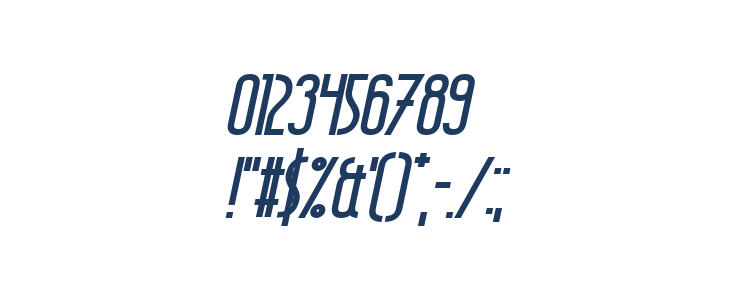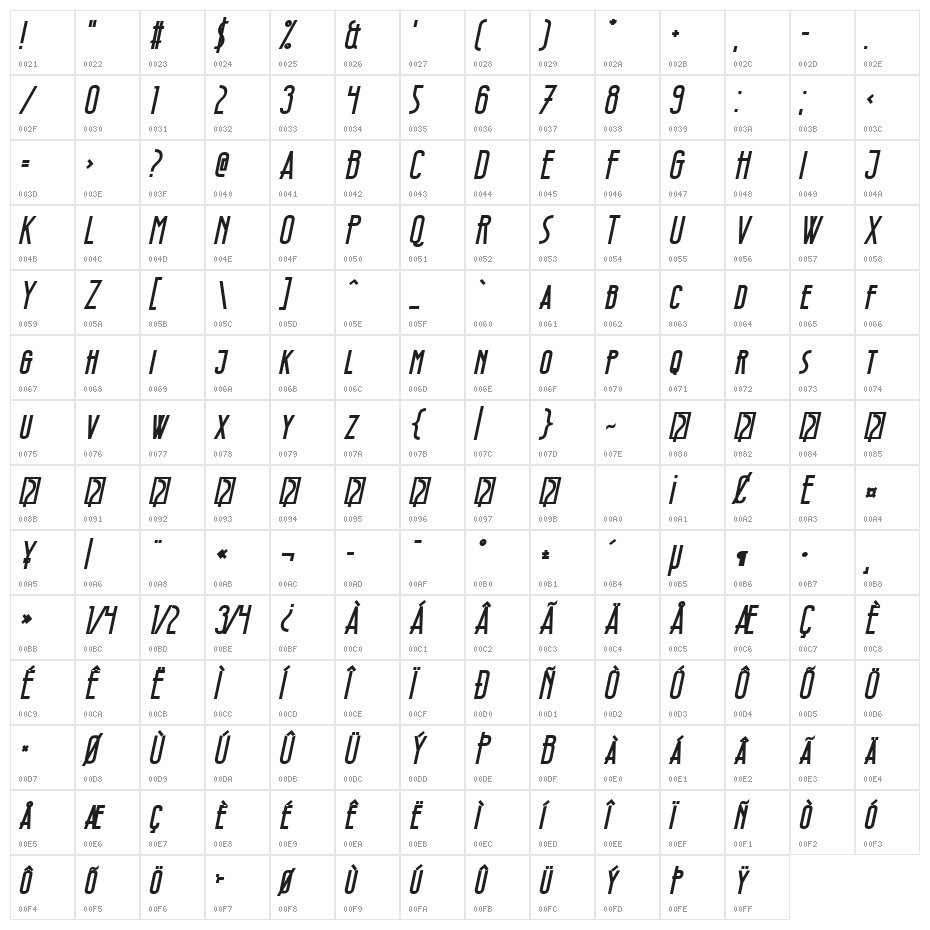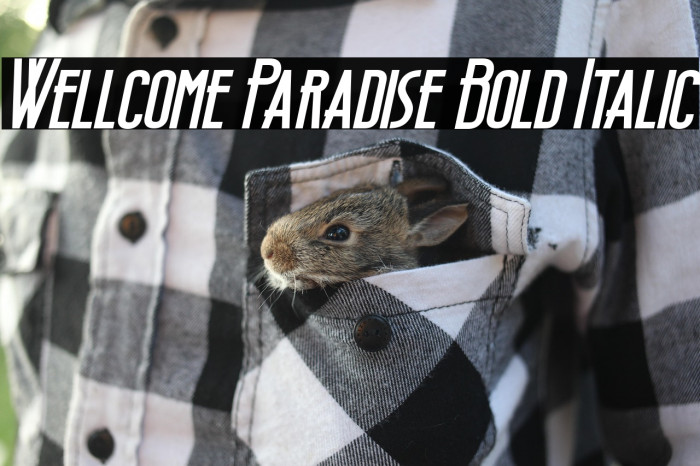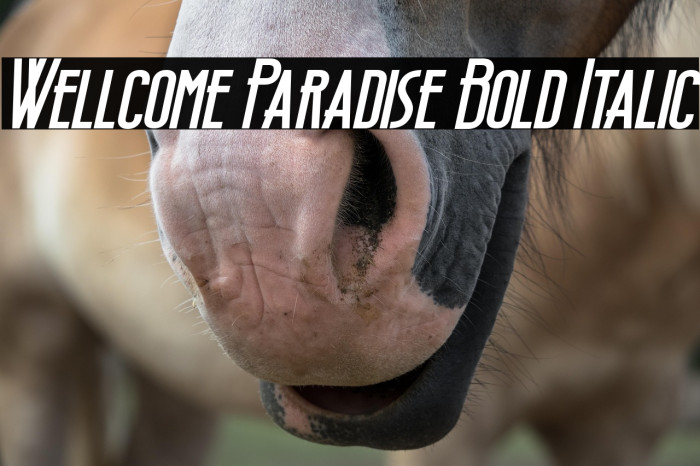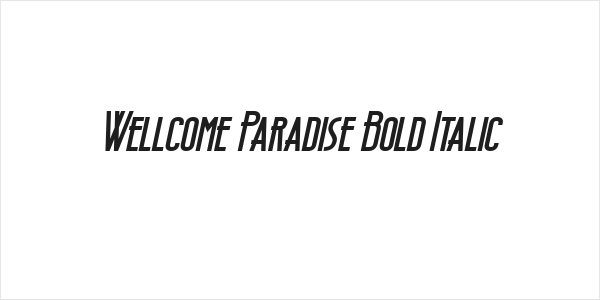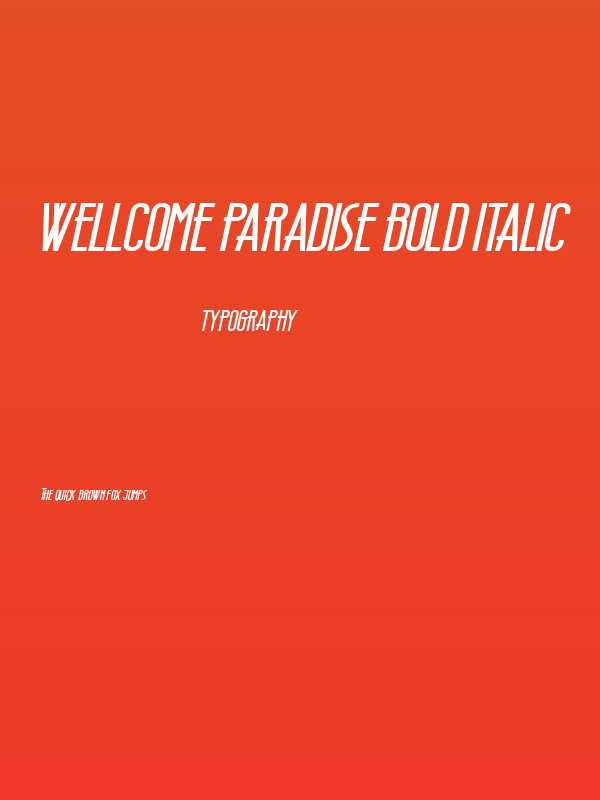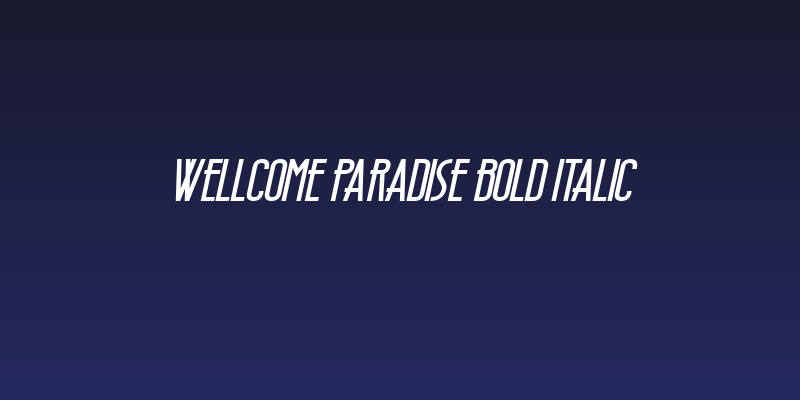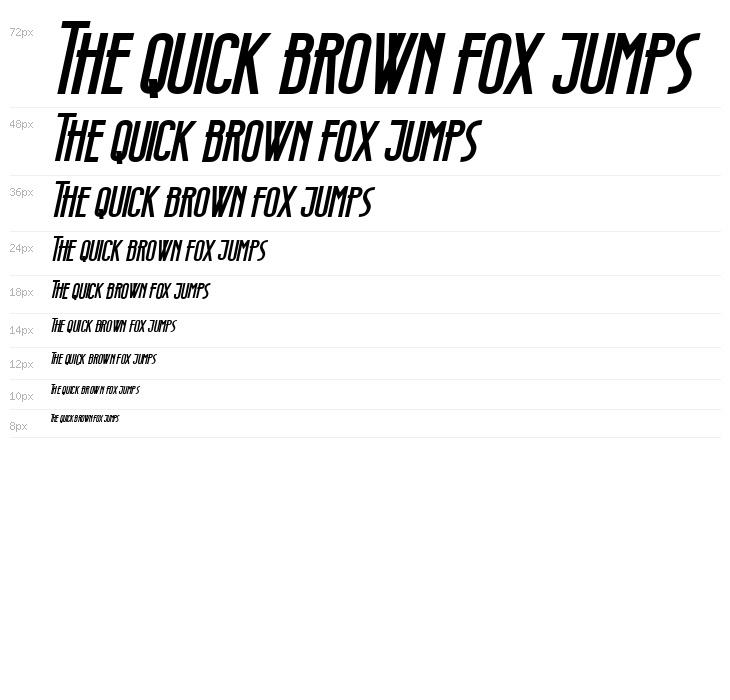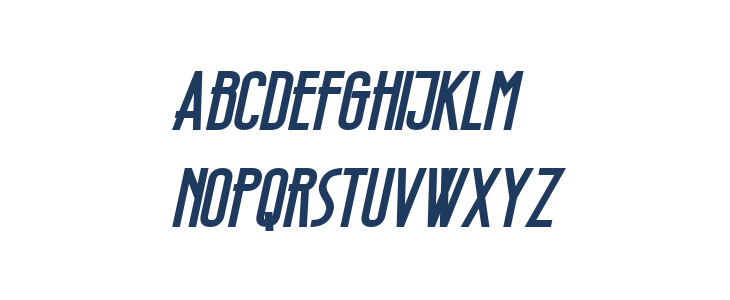
Wellcome Paradise Bold Italic Font
Wellcome Paradise Bold Italic Description
This font features a bold and italicized style with a modern and dynamic appearance. The characters are elongated and slightly condensed, giving them a sleek and streamlined look. The strokes are consistent in weight, contributing to a uniform and cohesive design. The italic slant adds a sense of motion and energy, making it suitable for attention-grabbing headlines and titles. The font maintains a medium contrast, with clear distinctions between thick and thin strokes, enhancing readability while preserving its stylish flair.